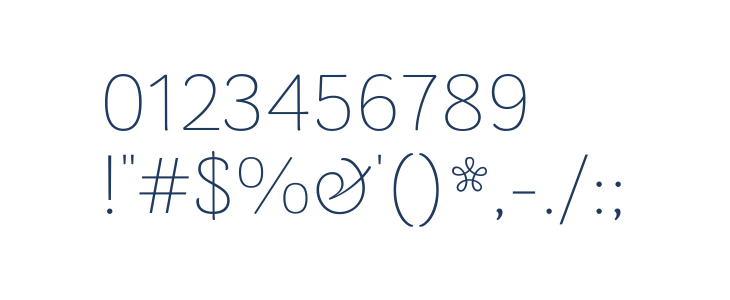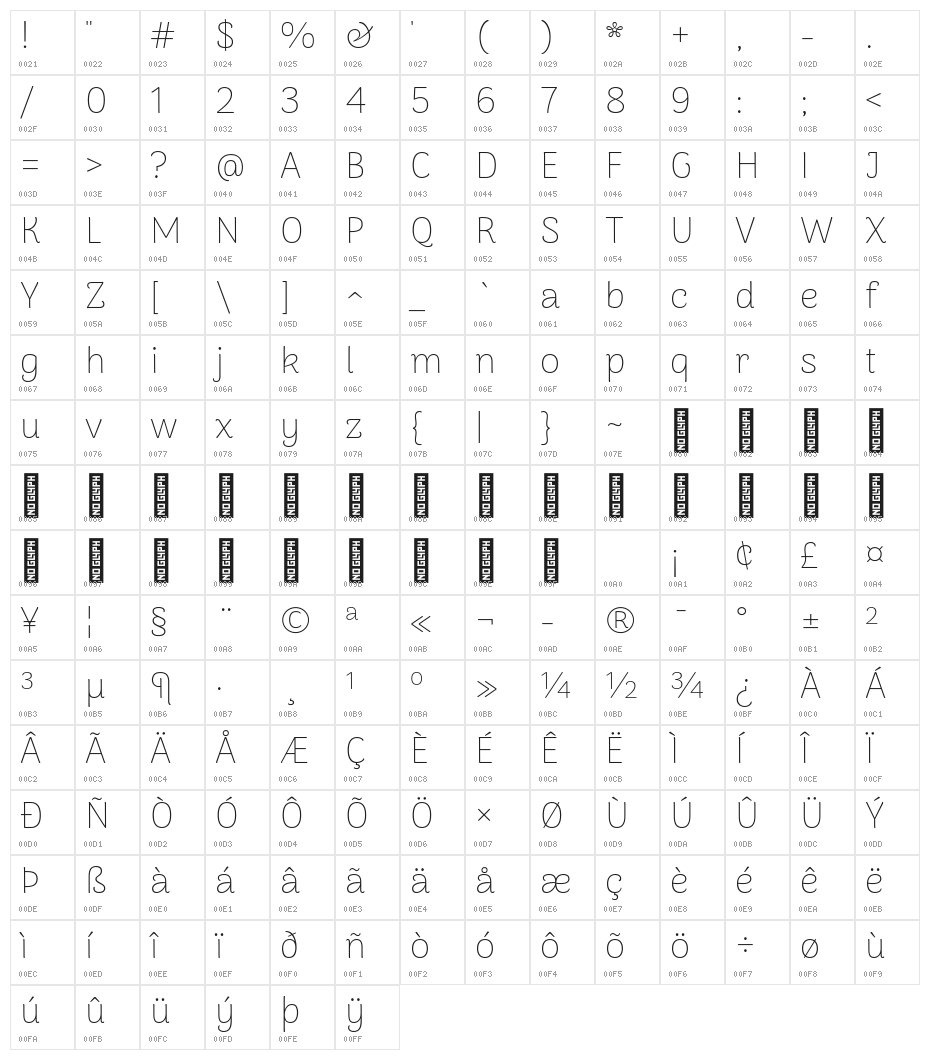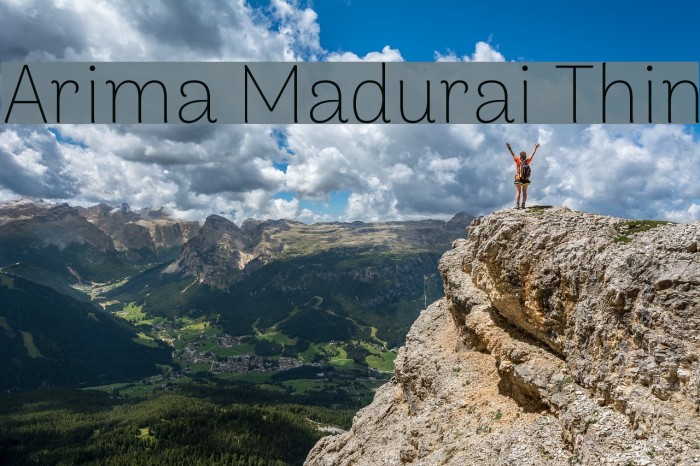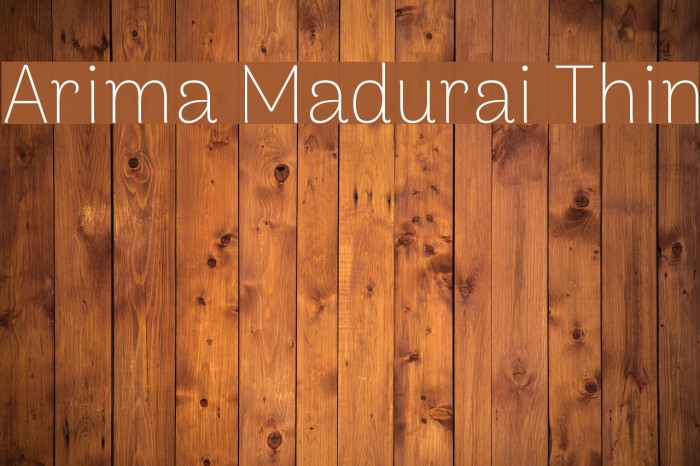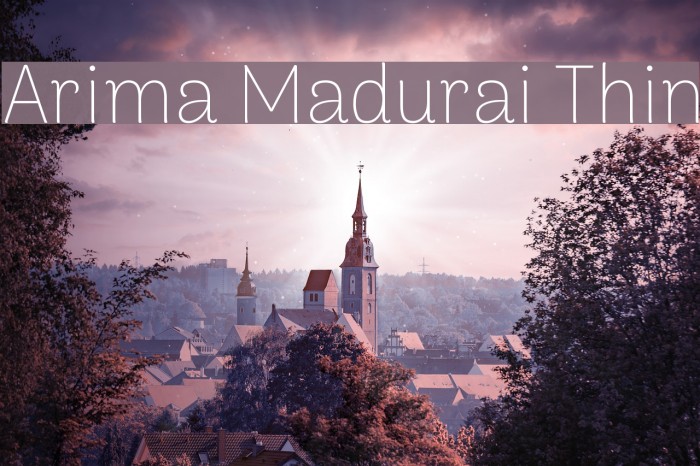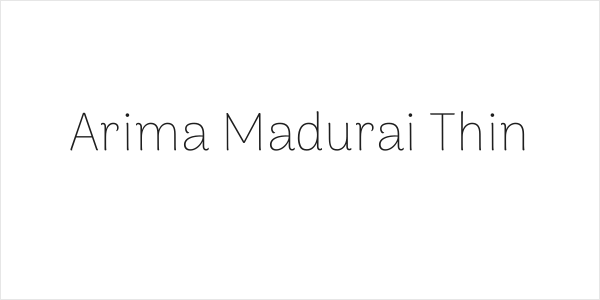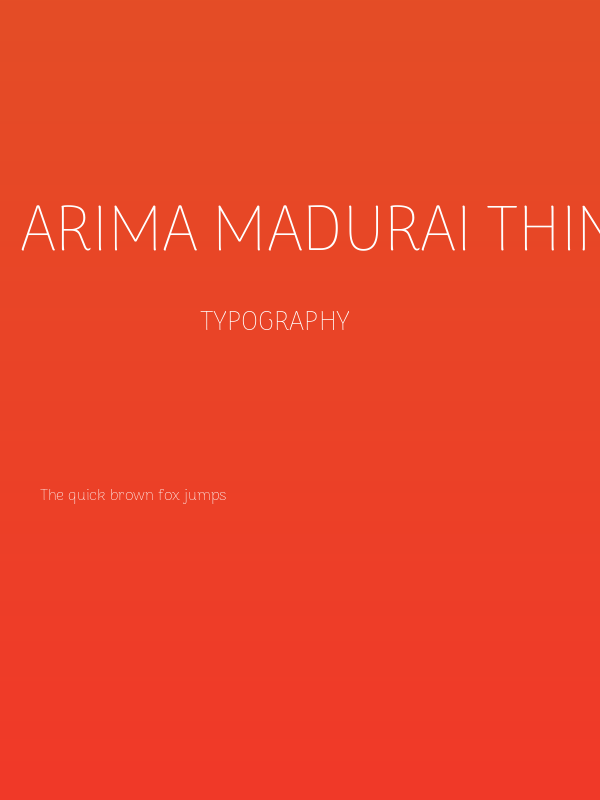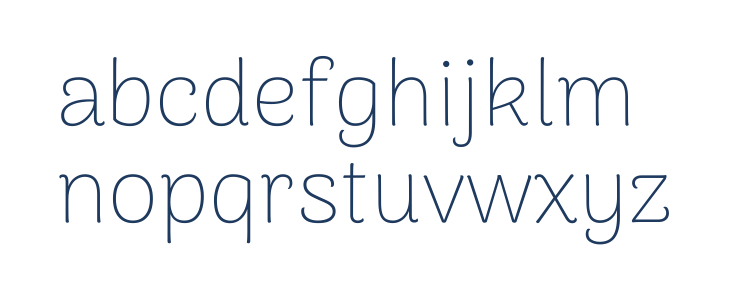
Arima Madurai Thin Font
Arima Madurai Thin Description
This font features a clean and modern sans-serif design with a thin weight, offering a sleek and minimalist appearance. The characters are evenly spaced with a slight geometric influence, providing a balanced and harmonious look. The uppercase and lowercase letters maintain a consistent style, with smooth curves and straight lines that enhance readability. The numerals and special characters are designed to complement the alphabet, ensuring uniformity across all text. This font is ideal for projects that require a contemporary and elegant touch.
| Proposed Projects | Ideal for branding, web design, editorial layouts, and minimalist posters. |